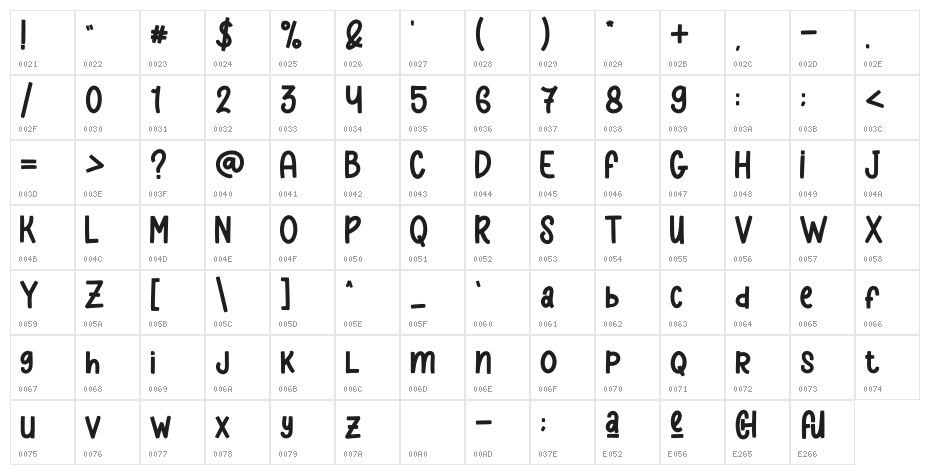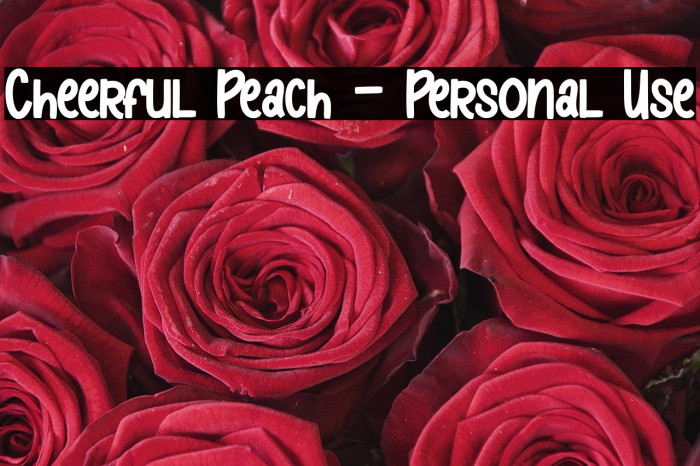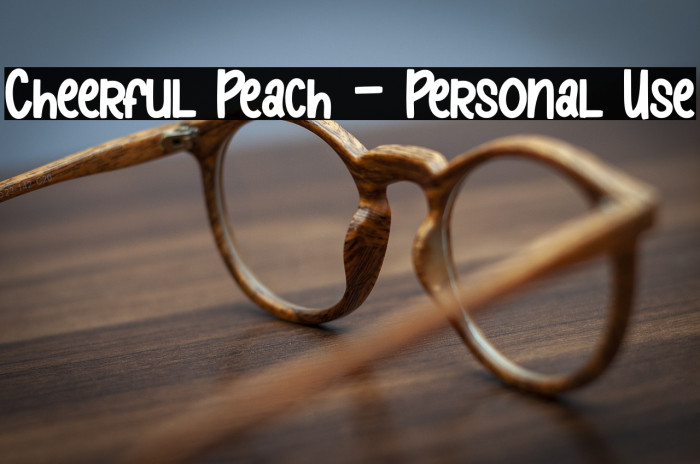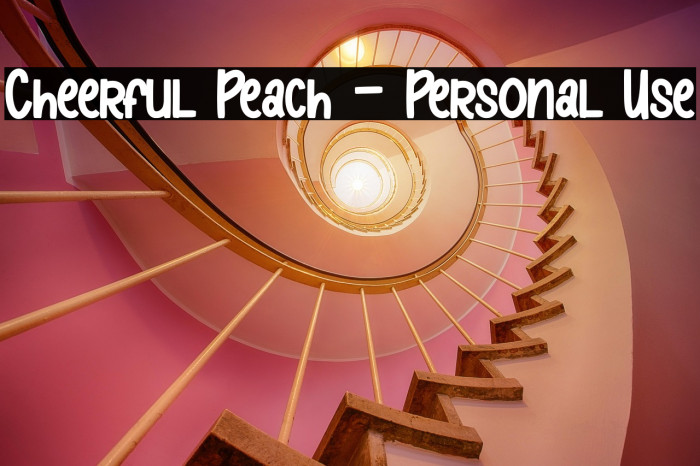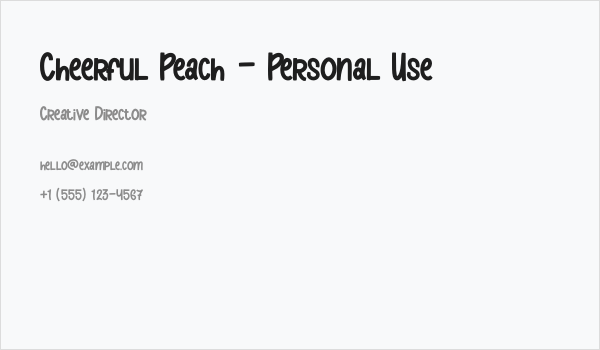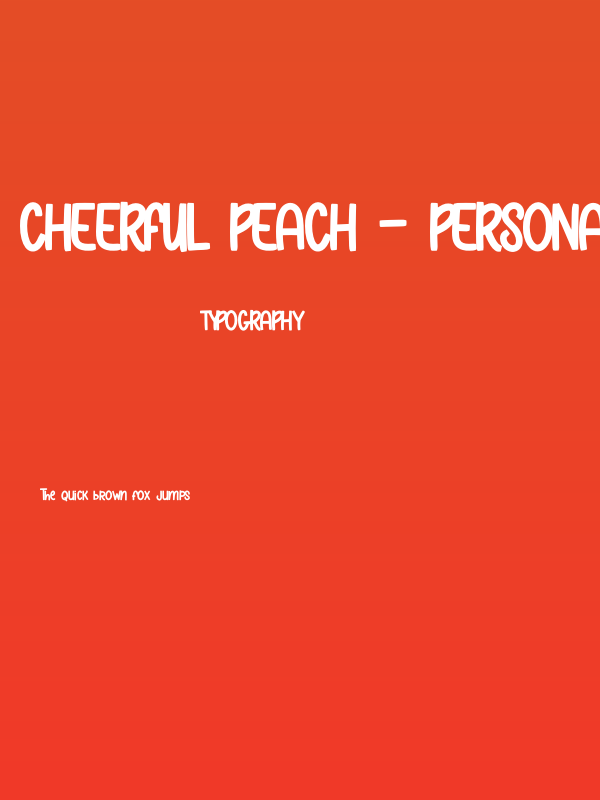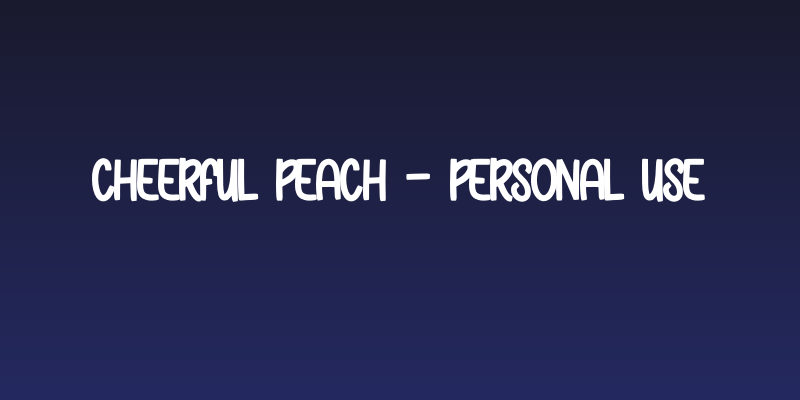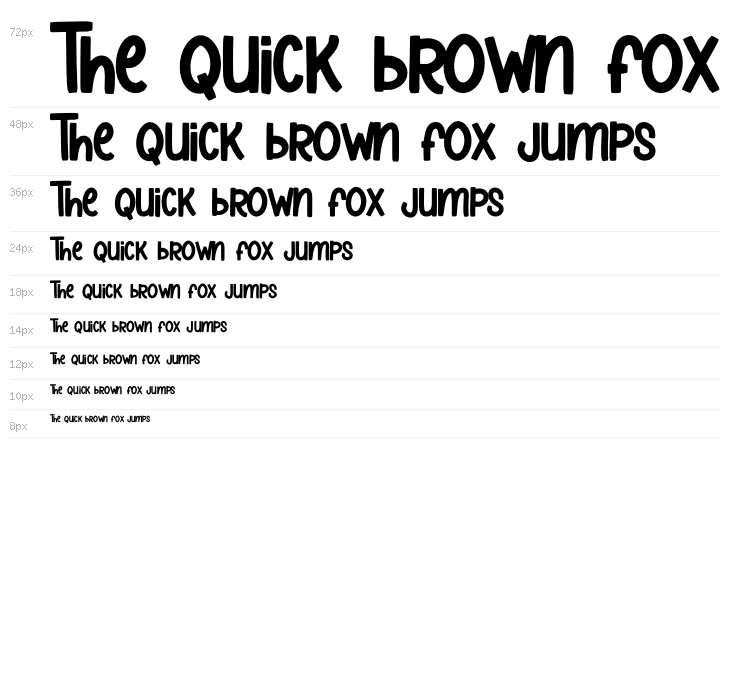
Cheerful Peach - Personal Use Font
Cheerful Peach - Personal Use Description
This playful and bold font features a handwritten style with a lively and energetic appearance. The letters are thick and rounded, giving a friendly and approachable feel. The uppercase and lowercase letters maintain a consistent width, while the numbers and special characters complement the overall design. The font's casual and informal style makes it suitable for projects that require a fun and engaging look. Its bold strokes and rounded edges ensure readability while adding a touch of whimsy. The character spacing is slightly tight, enhancing its cohesive appearance.
| Proposed Projects | Ideal for children's books, playful branding, greeting cards, and social media graphics. |